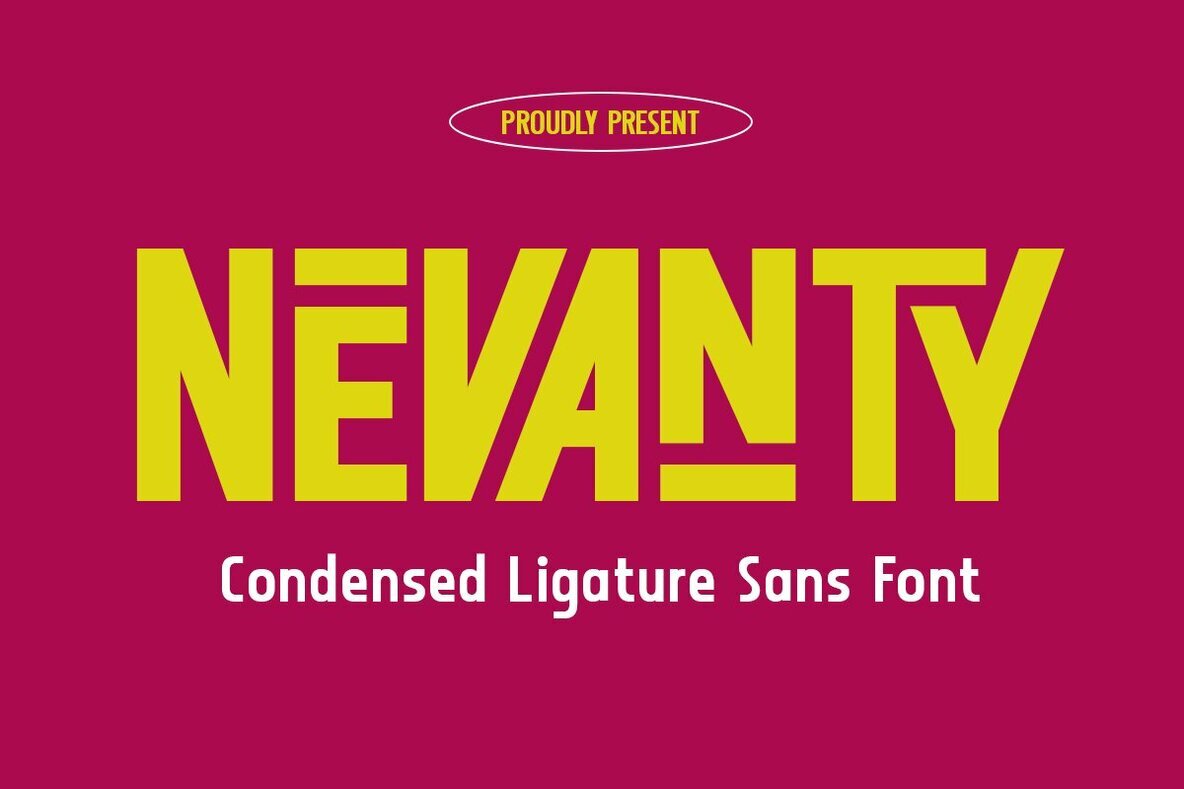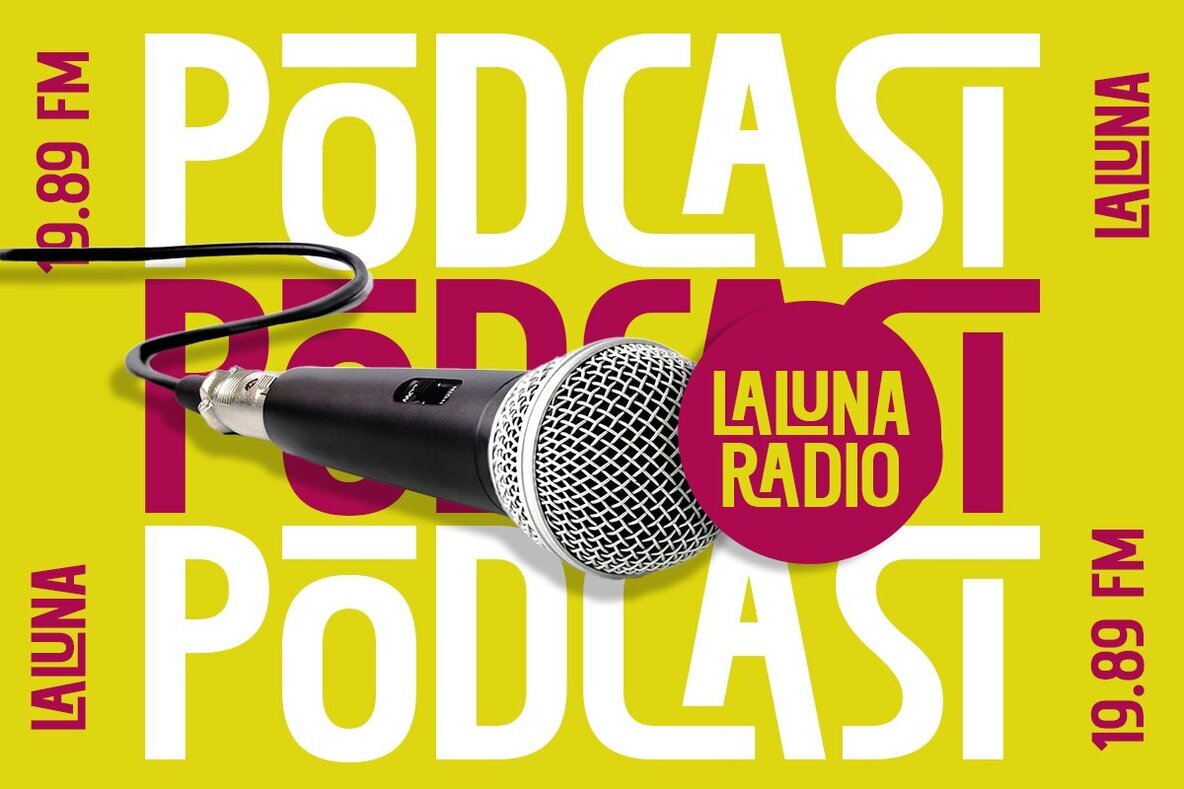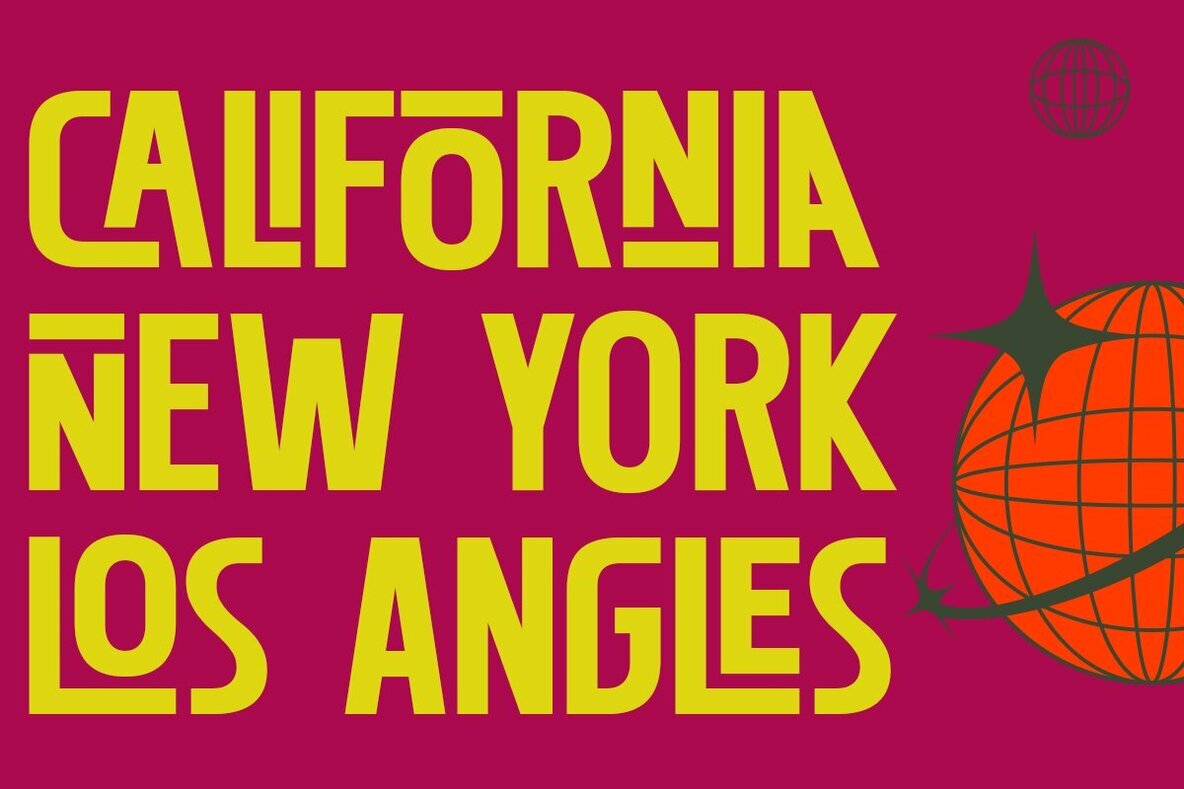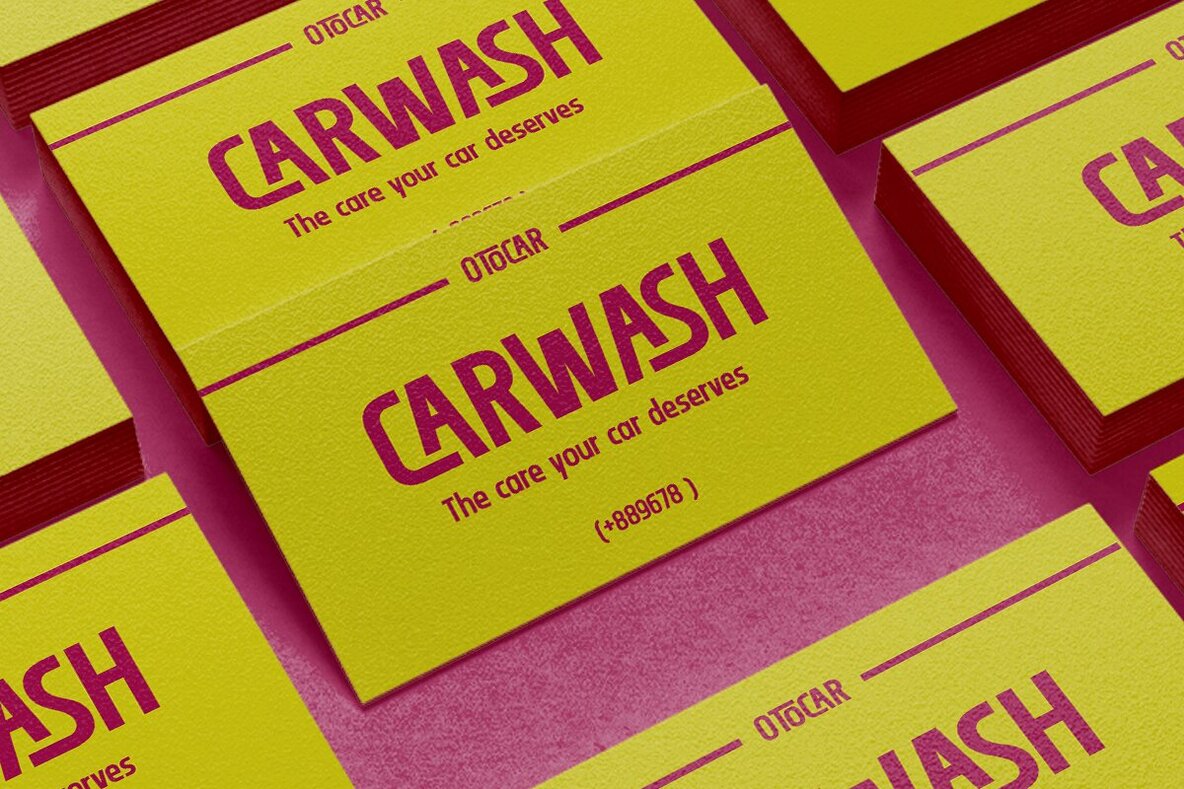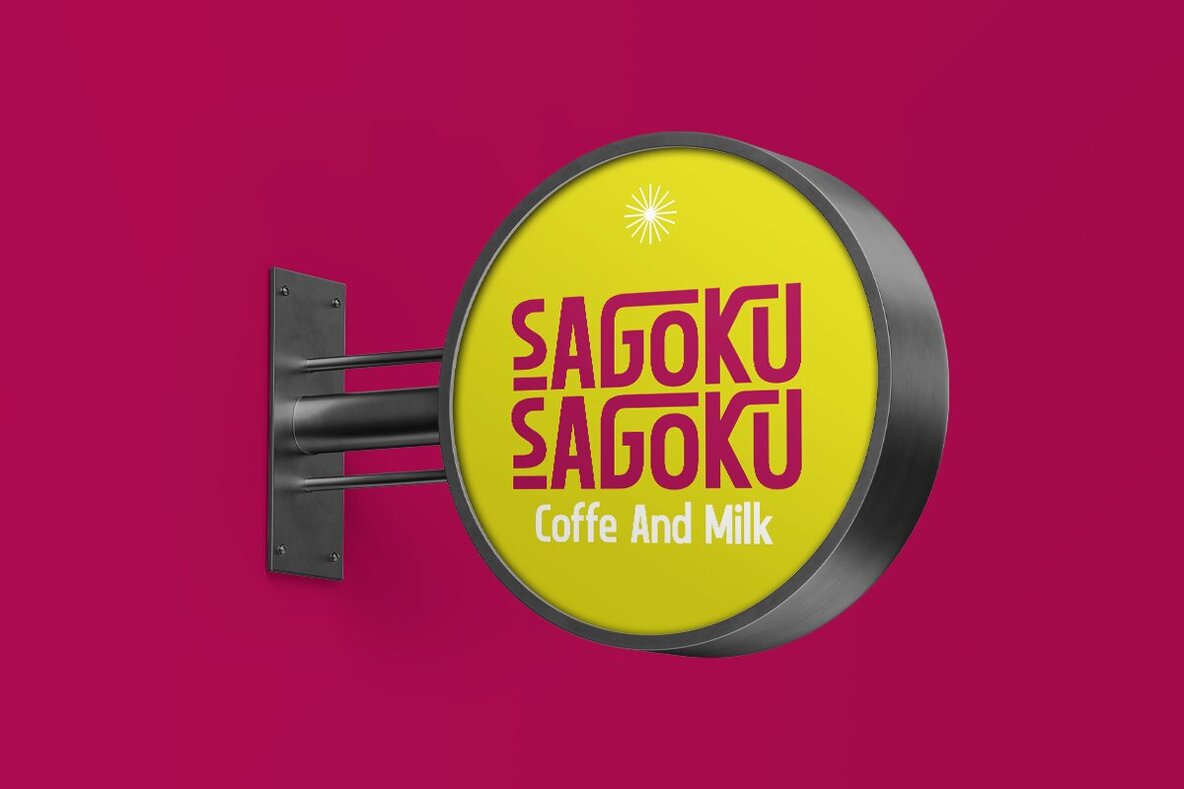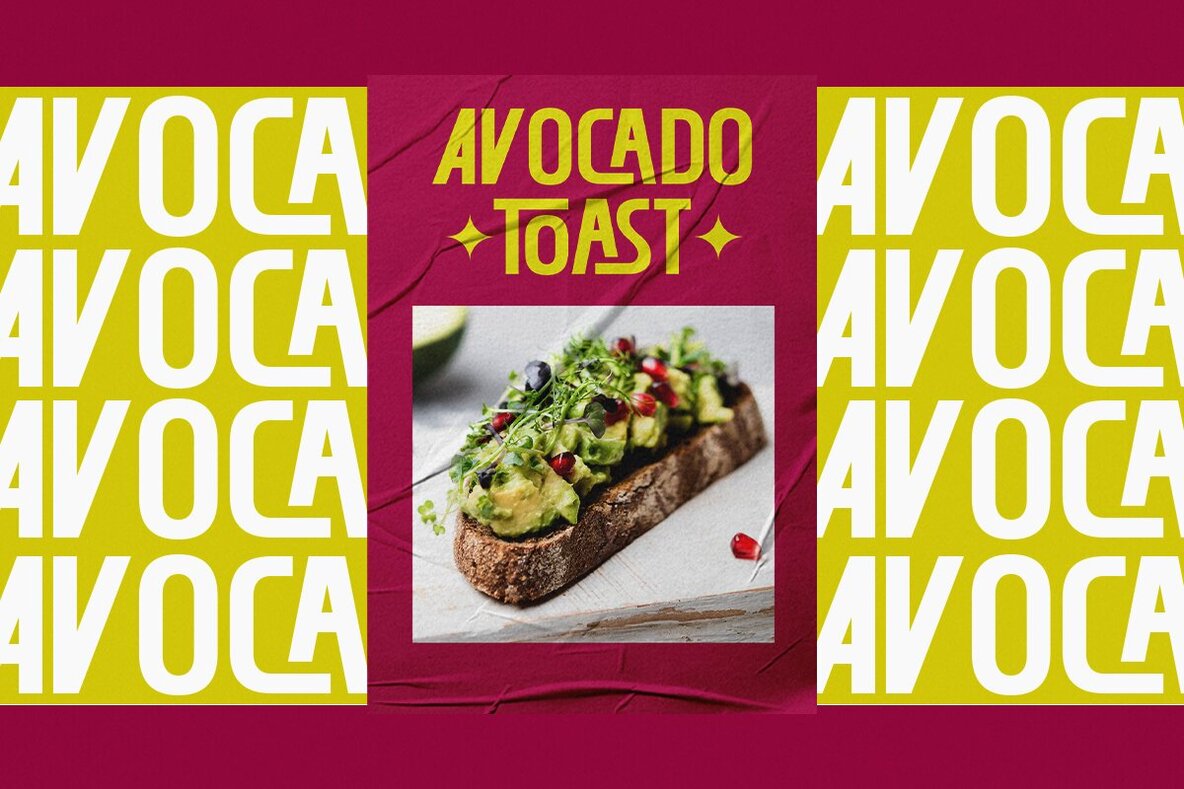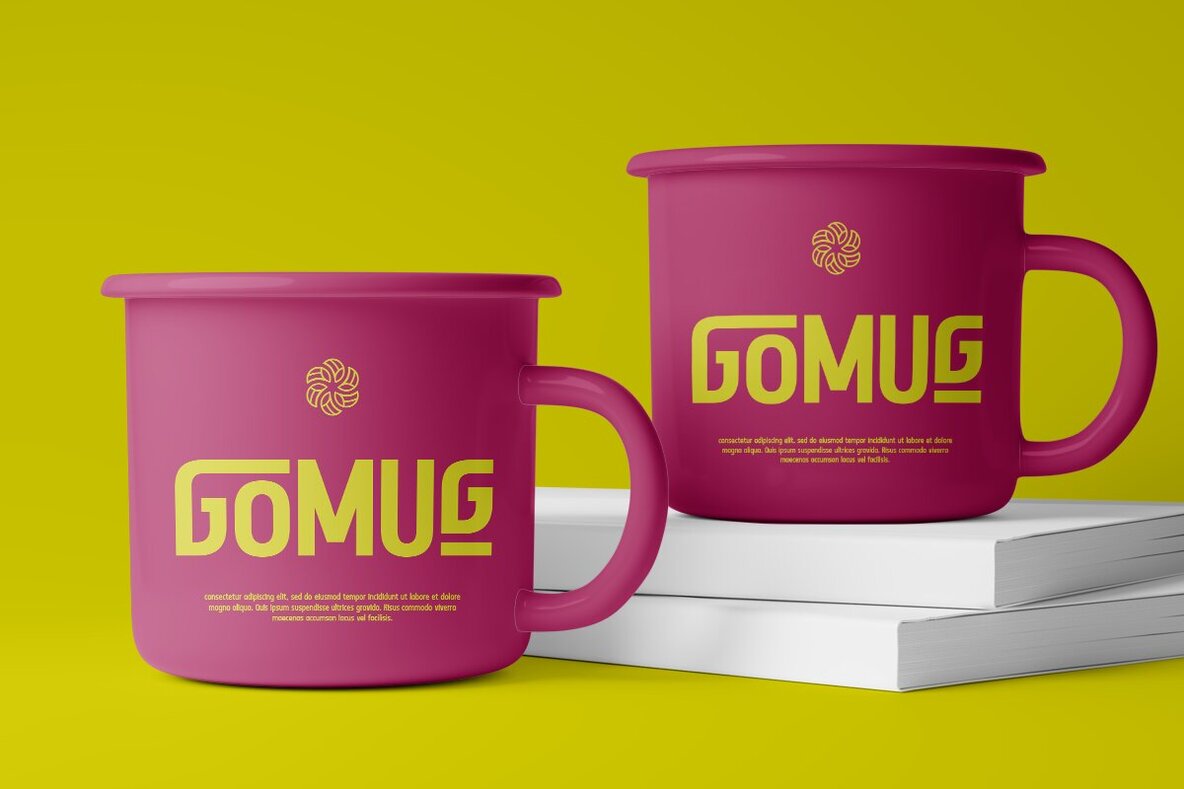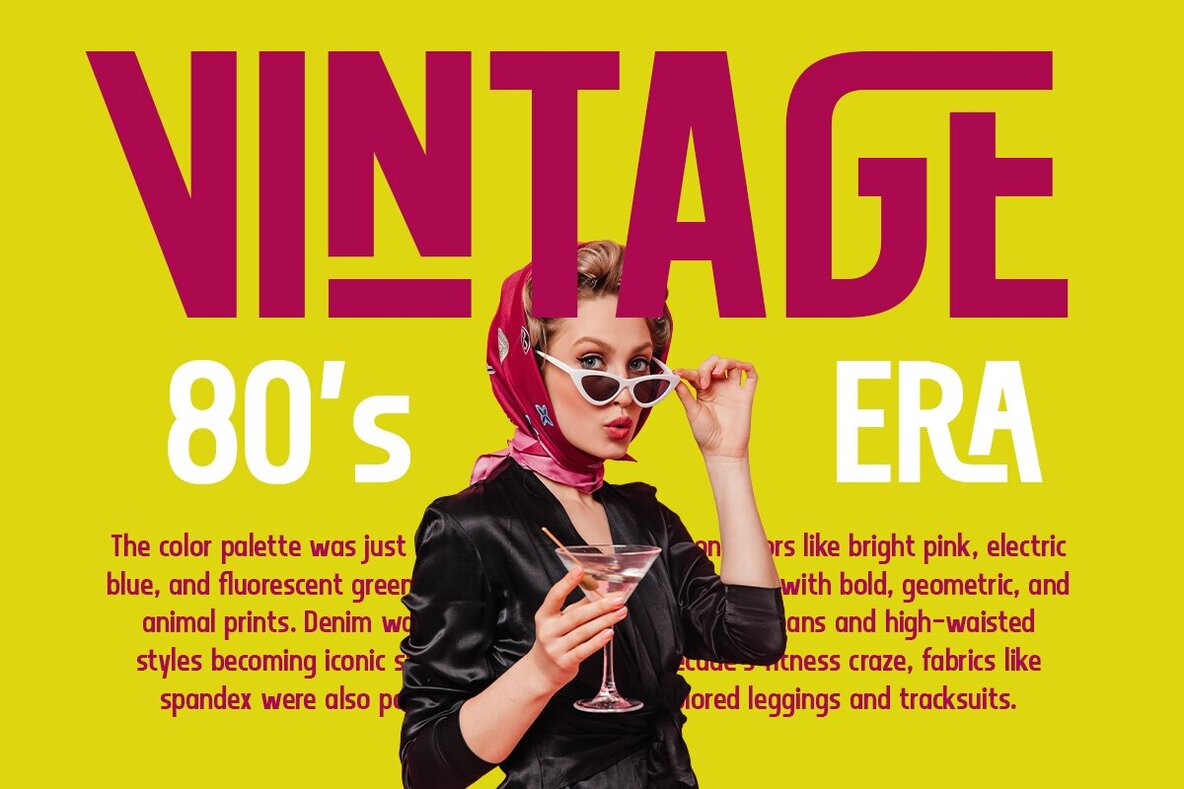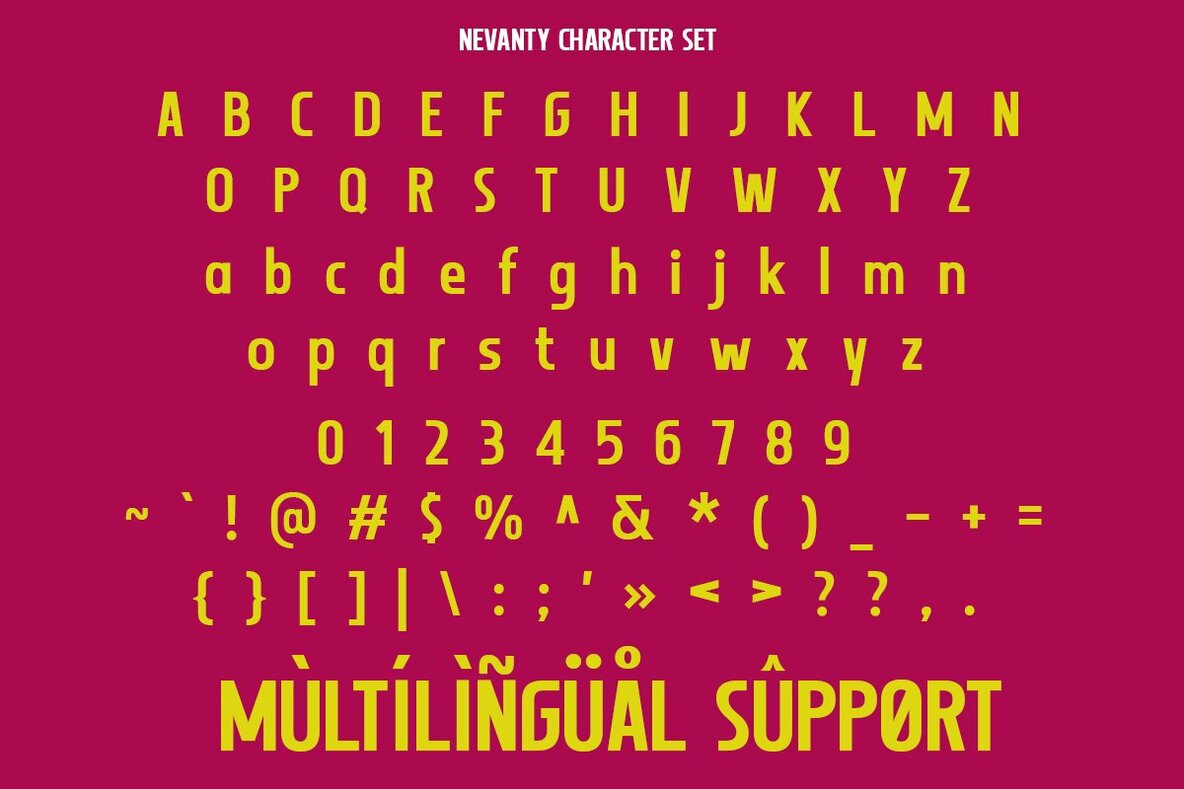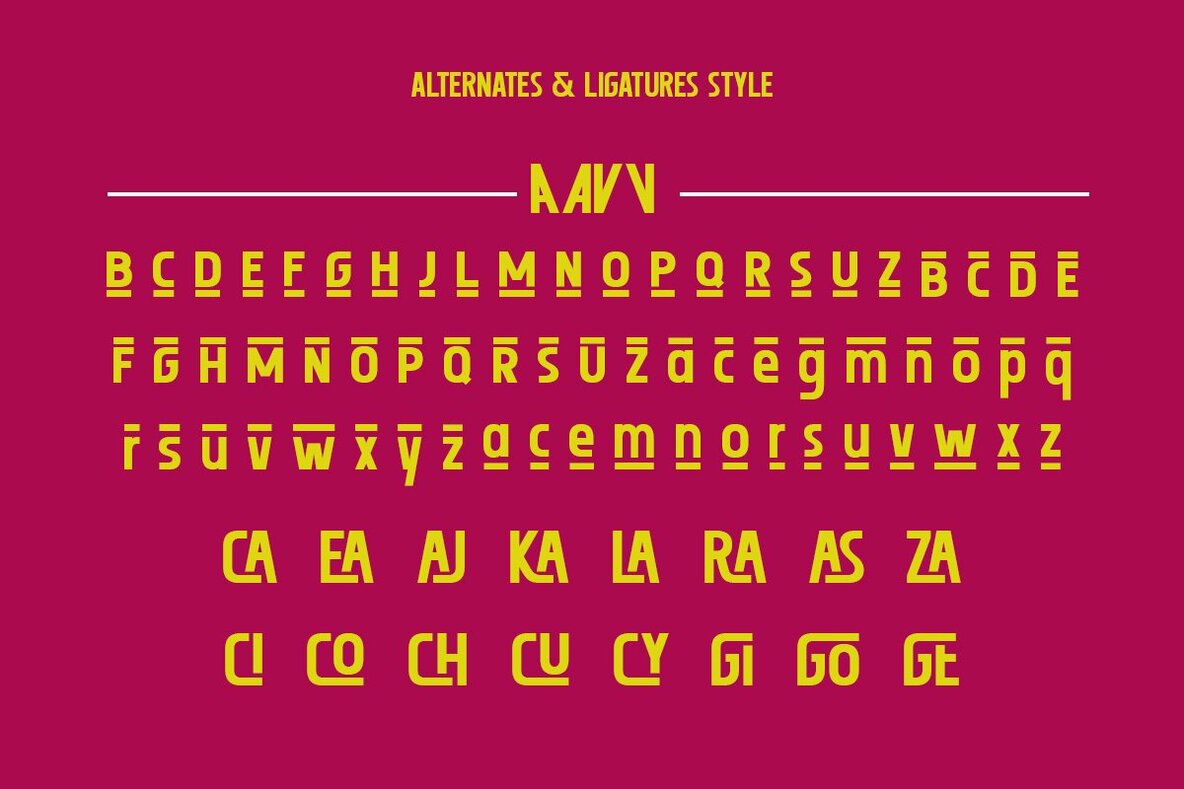
Nevanty Font
Nevanty is a captivating condensed sans serif font characterized by its bold design and cheerful aesthetic. Infused with an array of ligatures and alternate characters, Nevanty adds a touch of personality to all your creative endeavors. Its inviting sans-serif style feels like a warm embrace, ideal for crafting striking headlines, playful logos, and enchanting posters. This font is sure to bring joy and charm wherever it's used.Nevanty: Cheerful Condensed Sans Serif Font